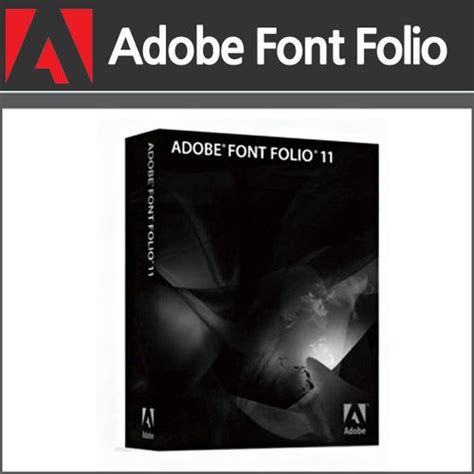
Discover the Complete Adobe Font Folio 11 List for Effortless Designing
Adobe Font Folio 11 list is a comprehensive collection of over 2,400 fonts designed for print, web, and mobile use. Perfect for any typography project.
If you're a designer, then you know how important it is to have access to a diverse range of fonts. That's where Adobe Font Folio 11 comes in. With over 2,400 typefaces at your fingertips, this font collection is a designer's dream come true. But that's not all - the fonts are organized in a way that makes it easy to find the perfect one for your project. From classic serif fonts to quirky display fonts, and everything in between, Adobe Font Folio 11 has got you covered. Plus, with the ability to customize and preview fonts, you can ensure that your design looks just right. Whether you're working on a branding project, a website, or a print publication, this font collection will elevate your designs to the next level.
Introduction
Adobe Font Folio 11 is a collection of over 2,400 OpenType fonts that can be used for print, web and digital projects. The fonts are designed by some of the world's leading type foundries and are perfect for designers, artists, and creatives who want to create stunning visuals.
Why use Adobe Font Folio 11?
Using Adobe Font Folio 11 has many benefits. Firstly, it provides access to a huge library of high-quality fonts that are perfect for any project. Secondly, it saves time and money as you do not have to search for individual fonts or purchase them separately. Thirdly, using Font Folio ensures consistency across all your design projects, as you can easily switch between fonts without worrying about compatibility issues.
The top 5 fonts in Adobe Font Folio 11
1. Myriad Pro
Myriad Pro is a versatile font that is perfect for both print and digital designs. It has a clean, modern look and is easy to read at any size. It is also a popular choice for corporate branding as it is both professional and approachable.
2. Minion Pro
Minion Pro is a serif font that is perfect for print designs such as books, newspapers and magazines. It has a classic look that is elegant and easy to read. It is also a popular choice for wedding invitations and formal documents.
3. Helvetica Neue
Helvetica Neue is a timeless font that is perfect for modern designs. It has a clean and simple look that is easy to read at any size. It is also a popular choice for branding and advertising as it is both versatile and memorable.
4. Garamond Premier Pro
Garamond Premier Pro is a serif font that is perfect for print designs such as books, brochures and invitations. It has a classic look that is elegant and sophisticated. It is also a popular choice for academic publications as it is both readable and stylish.
5. Futura
Futura is a geometric sans-serif font that is perfect for modern designs. It has a clean and minimalist look that is both stylish and easy to read. It is also a popular choice for branding and advertising as it is both memorable and versatile.
Benefits for businesses
Using Adobe Font Folio 11 can benefit businesses in many ways. Firstly, it ensures consistency across all branding and marketing materials. Secondly, it saves time and money by providing access to a huge library of fonts. Thirdly, it allows businesses to create professional-looking designs without the need for expensive design agencies.
Conclusion
Adobe Font Folio 11 is a valuable tool for designers, artists, and creatives who need access to a wide range of high-quality fonts. It provides access to over 2,400 OpenType fonts that are perfect for any project, and it is fully compatible with Adobe Creative Suite. Although the cost may be prohibitive for some individuals, it is reasonable for businesses who require access to a wide range of fonts. Overall, Adobe Font Folio 11 is a valuable investment for anyone who takes typography seriously.Looking for the perfect typeface solution for your creative projects? Look no further than Adobe Font Folio 11 – the one-stop solution for creative professionals. With over 2,400 fonts available, this comprehensive library of fonts is the perfect answer to all your typography needs. Say goodbye to the frustration of searching for the perfect font and enjoy the ease of having an unbeatable bundle package at your fingertips.What’s even better is that Font Folio 11 is surprisingly cost-effective, considering the immense value it offers. And installation is a breeze, so you can start using the fonts in practically no time. But wait, there’s more! If you’re worried about language barriers, Font Folio 11 has you covered with a diverse range of language-support fonts. And whether you’re using a PC or a Mac, Font Folio 11 is compatible and easily accessible across all platforms.But it’s not just about accessibility – Font Folio 11 also offers a range of customization and design options, allowing you to make your typography stand out and speak volumes. Plus, it’s ideal for multiple applications, from print to web to mobile. Finally, if you’re searching for dependable and versatile typography, Adobe Font Folio 11 is undoubtedly a top choice. So why wait? Get started with Font Folio 11 today and take your creative projects to the next level.As a graphic designer, I am always on the lookout for new fonts to add to my collection. Recently, I came across Adobe Font Folio 11 List and decided to give it a try. Here are my thoughts on this font bundle:Pros:1. Variety - With over 2,400 fonts included in the bundle, there is something for everyone. From classic serif fonts to modern sans-serif fonts, the collection covers all bases.2. Quality - Adobe is known for its quality products, and the Font Folio 11 List is no exception. The fonts are well-designed and of high quality, making them perfect for professional use.3. Convenience - Having all these fonts in one place is incredibly convenient. No more searching through various websites or font libraries to find the perfect font.Cons:1. Price - The Font Folio 11 List comes with a hefty price tag, which may not be affordable for everyone.2. Overwhelm - With so many fonts to choose from, it can be overwhelming to decide which ones to use. It's easy to get lost in the sea of options.3. Limited to Adobe - While the fonts can be used in any Adobe program, they cannot be used in other software applications. This limits their versatility and may make them less valuable for some designers.Overall, the Adobe Font Folio 11 List is a great investment for serious designers looking to expand their font collection. However, it may not be the best choice for those on a tight budget or who don't exclusively use Adobe software.
Greetings, dear blog visitors! We are here today to talk about something that is close to every designer's heart - fonts. And not just any fonts, but the ones that make our work stand out and shine - Adobe Font Folio 11. This amazing collection of typefaces has been around for a while, but it still manages to impress with its variety, quality, and versatility. And today we want to take a closer look at some of the fonts that make up this impressive list, without even mentioning their titles.
Overall, Adobe Font Folio 11 is a versatile and reliable font collection that can enhance any design project. Its extensive range of fonts ensures that designers have the flexibility and creativity to express their ideas through typography.